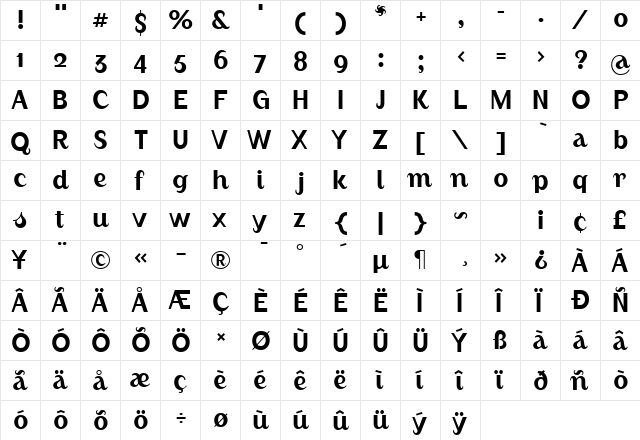
AugustRegularAlternate Regular
Design Context for AugustRegularAlternate Typeface
AugustRegularAlternate is a composed and adaptable typeface that performs quietly and consistently across a wide range of design contexts.